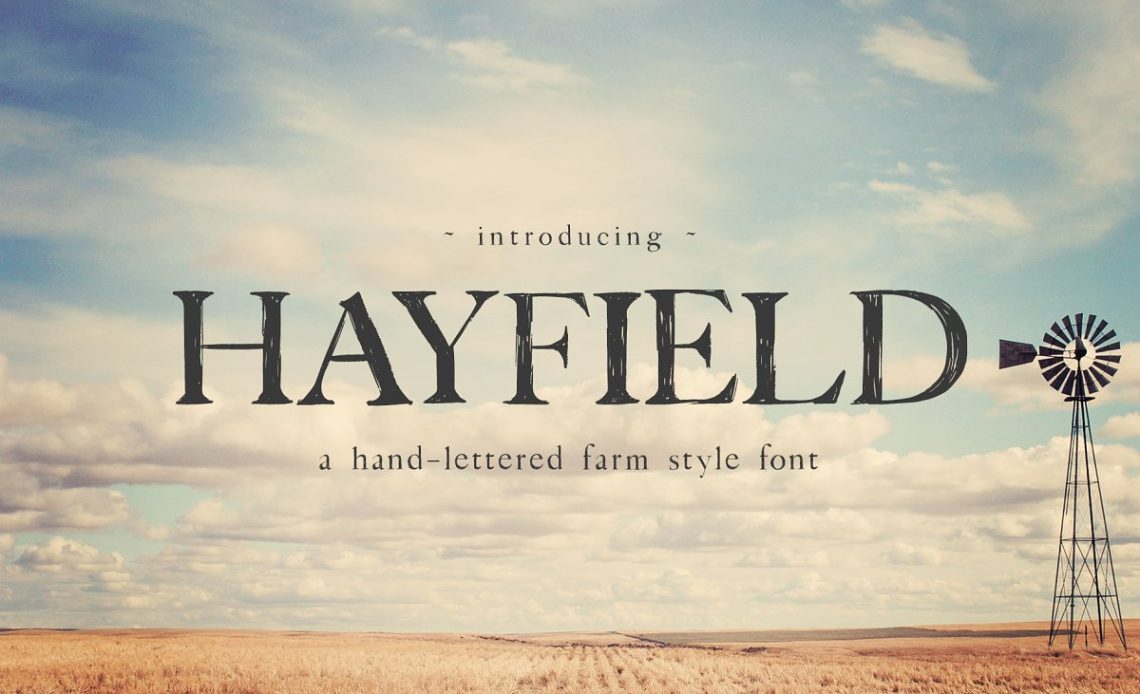
Are you looking for the perfect font to elevate your farm logo? Look no further than Hayfield Hand Lettered Font! Created by the talented Catherine Haugland, this serif font combines classic styling with rustic texture to create a truly unique look.
But Hayfield isn't just for logos. This versatile font is perfect for all kinds of projects, from signs and invitations to journals and more. And with both OTF and TTF formats included, you'll have everything you need to get started right away.
And with multilingual support for the Latin-1 letter characters, Hayfield is perfect for businesses looking to expand their reach to Western European countries. Whether you're creating content in Albanian, Catalan, Danish, Dutch, English, Faeroese, Finnish, French, German, Galician, Irish, Icelandic, Italian, Norwegian, Portuguese, Spanish, or Swedish, Hayfield has you covered.